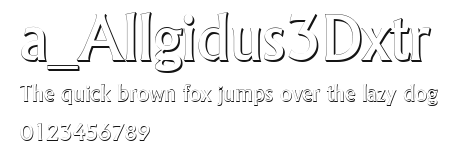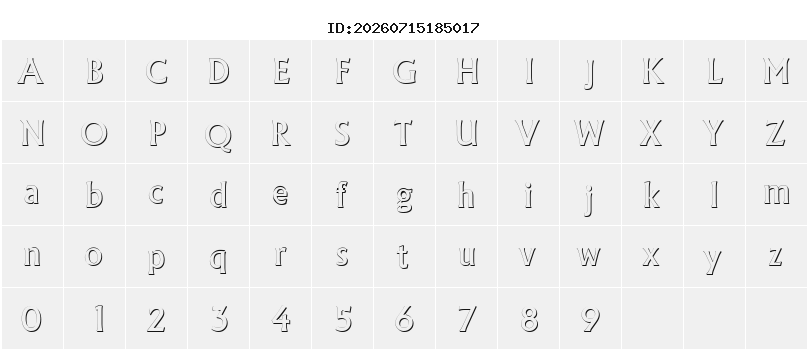
• Font Name: a_Allgidus3Dxtr
• Designer: W.Chufarofsky & M.Slutsker
a_Allgidus3Dxtr.ttf is a modern, elegant sans-serif font designed for ultimate readability and visual harmony. Perfect for branding, headlines, web design, and print materials.